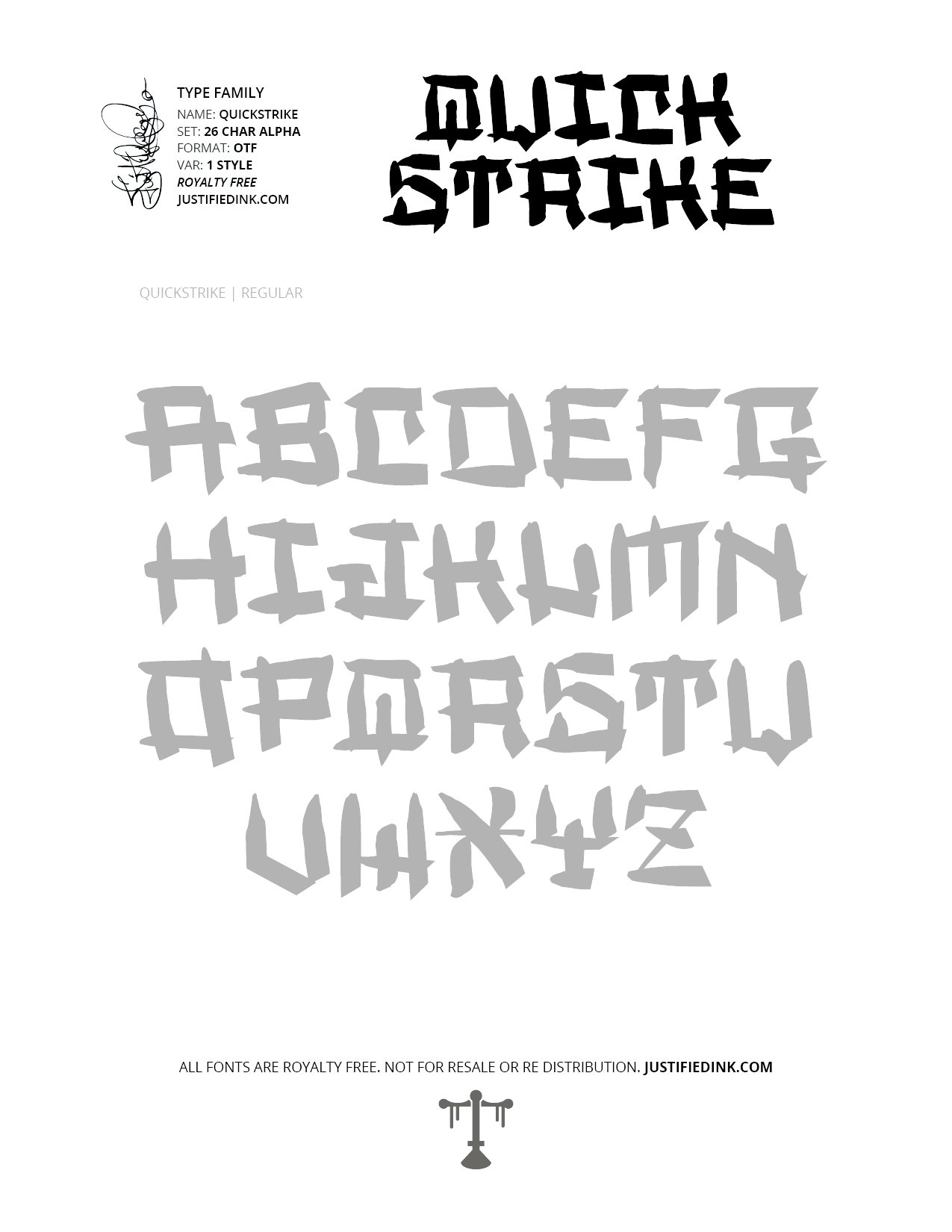
Quickstrike (1 style) - Custom Font by Justified Ink
A sharp fast hitting font: Quickstrike. Practice makes progress.
This font is part of the collection by Justified Ink, called Blackletter III. After 15+ years creating, I began to focus on building personal libraries of my work. Blackletter III is yet another amazing collection of 30 handmade fonts. Building off of the work done to create Blackletter II, this collection is specialized where it was created digitally. This features many classic styles such as gothic, fraktur, beneventan, and uncial. Additionally, this collection contains several other styles drawn from graffiti, hiphop, and indie type styles. It comes in a full set of 26 char alpha. Each font family has variations in styles and/or non-alpha chars.